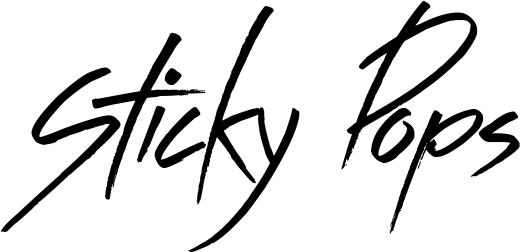
Sticky Pops Font
Sticky Pops is one of the handwritten fonts. You can see from each character’s lines, especially uppercase characters, how quickly it is designed, and you can use it to create many flyers and posters of martial arts, kung fu, and judo.
This font can be used to design T-shirts and many sports bags and shoes. One of the drawbacks of this 80s script font is that it does not include numbers but it supports multiple languages.